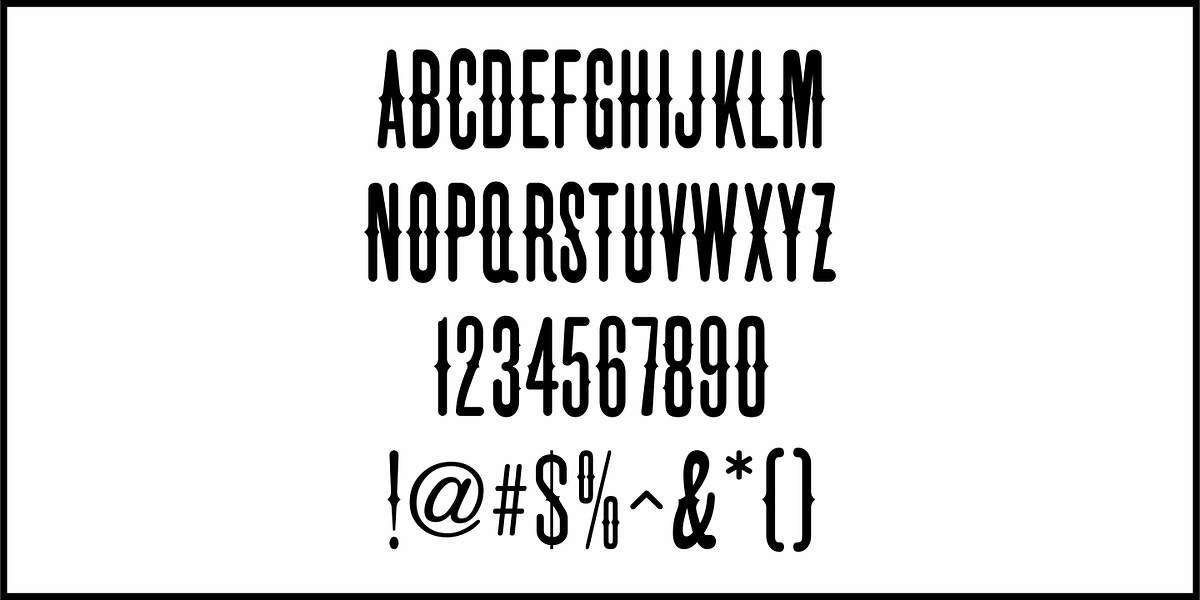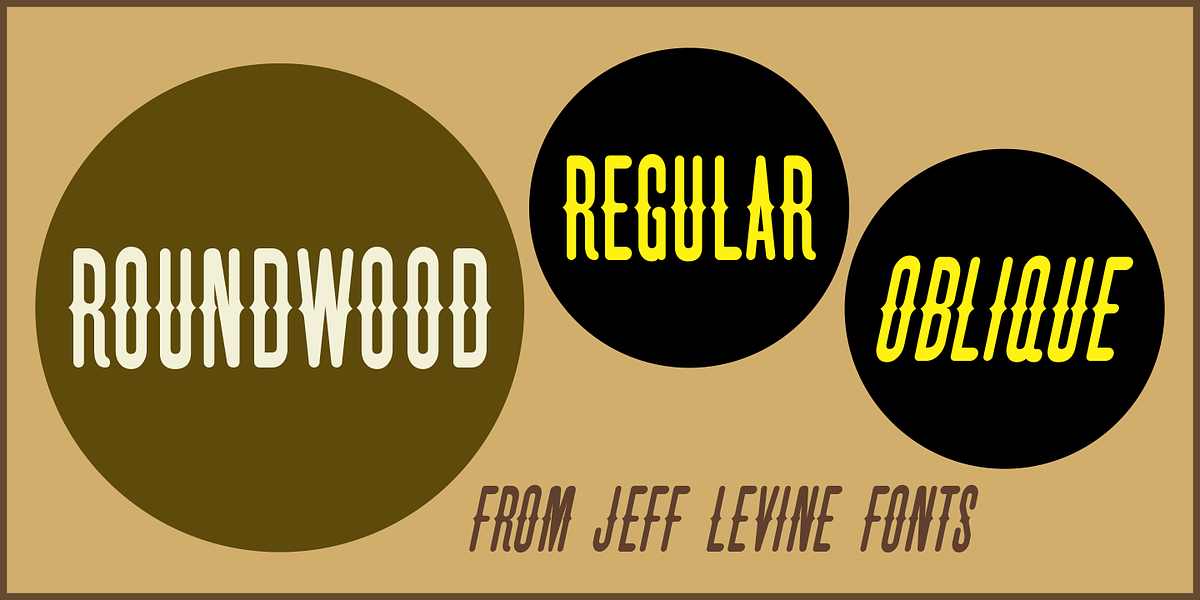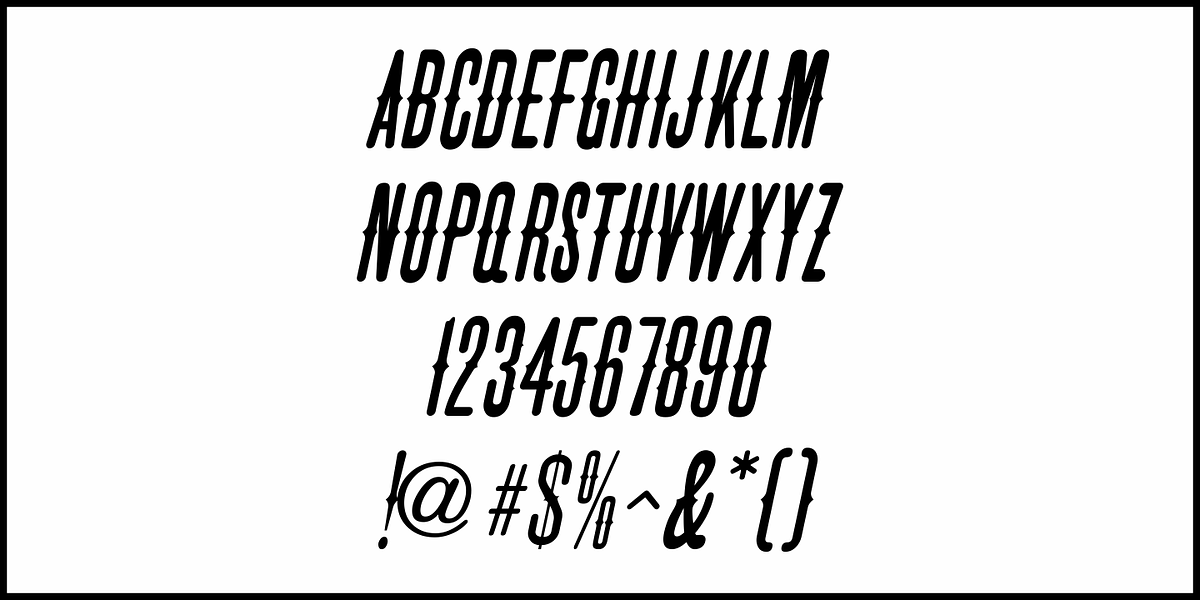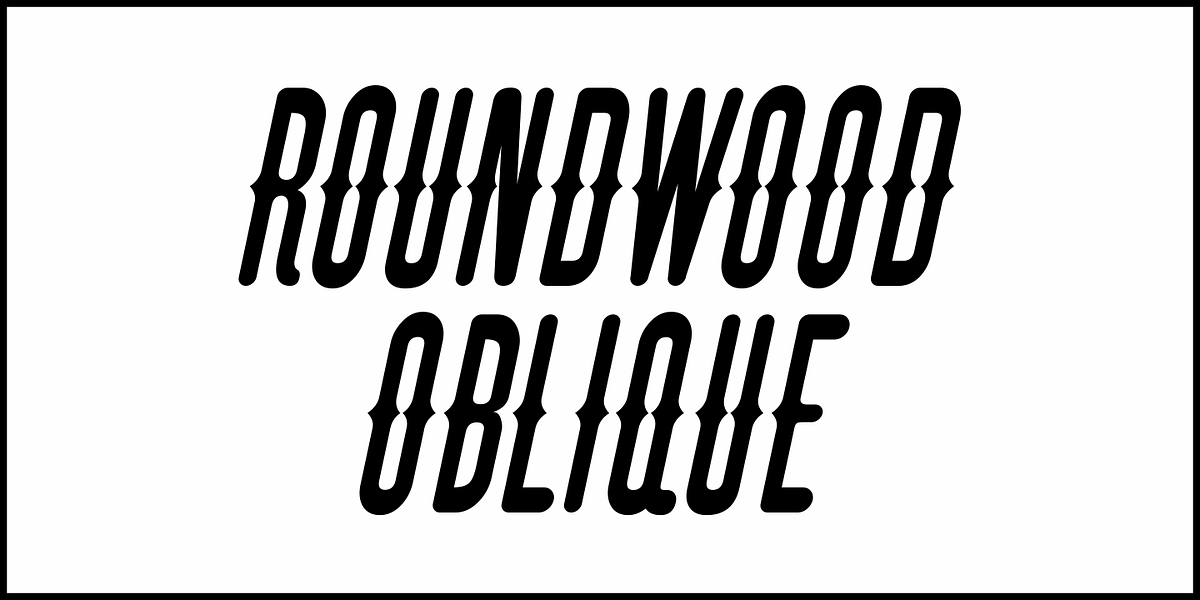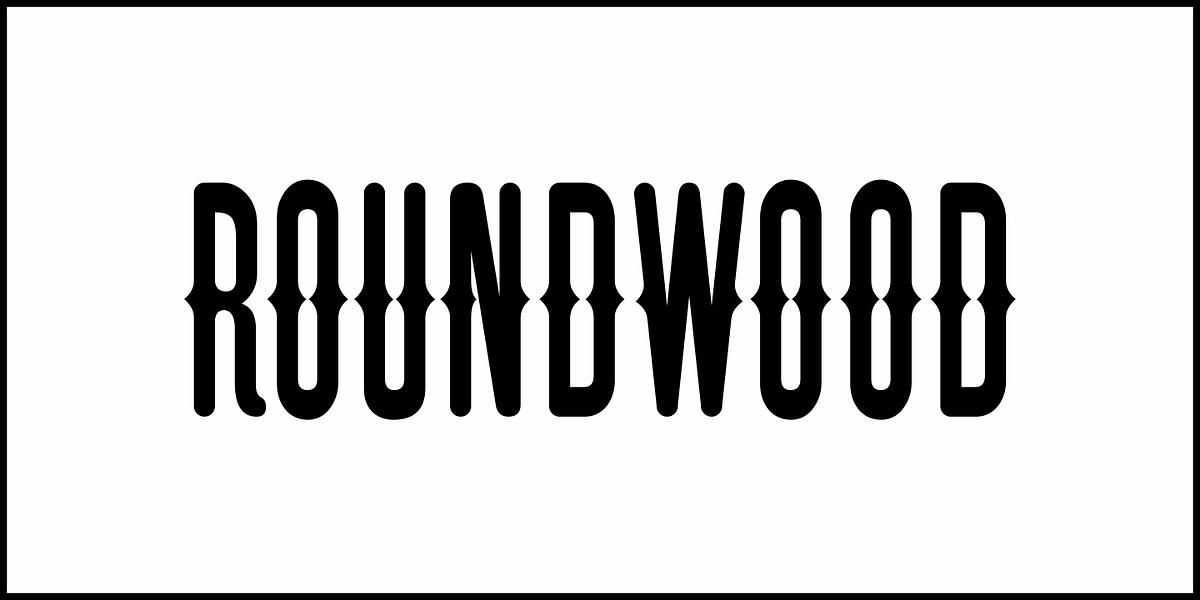
Roundwood JNL
The antique wood type Gothic Tuscan [a spurred design with rounded terminals] was the basis for Roundwood JNL, which is available in both regular and oblique versions.